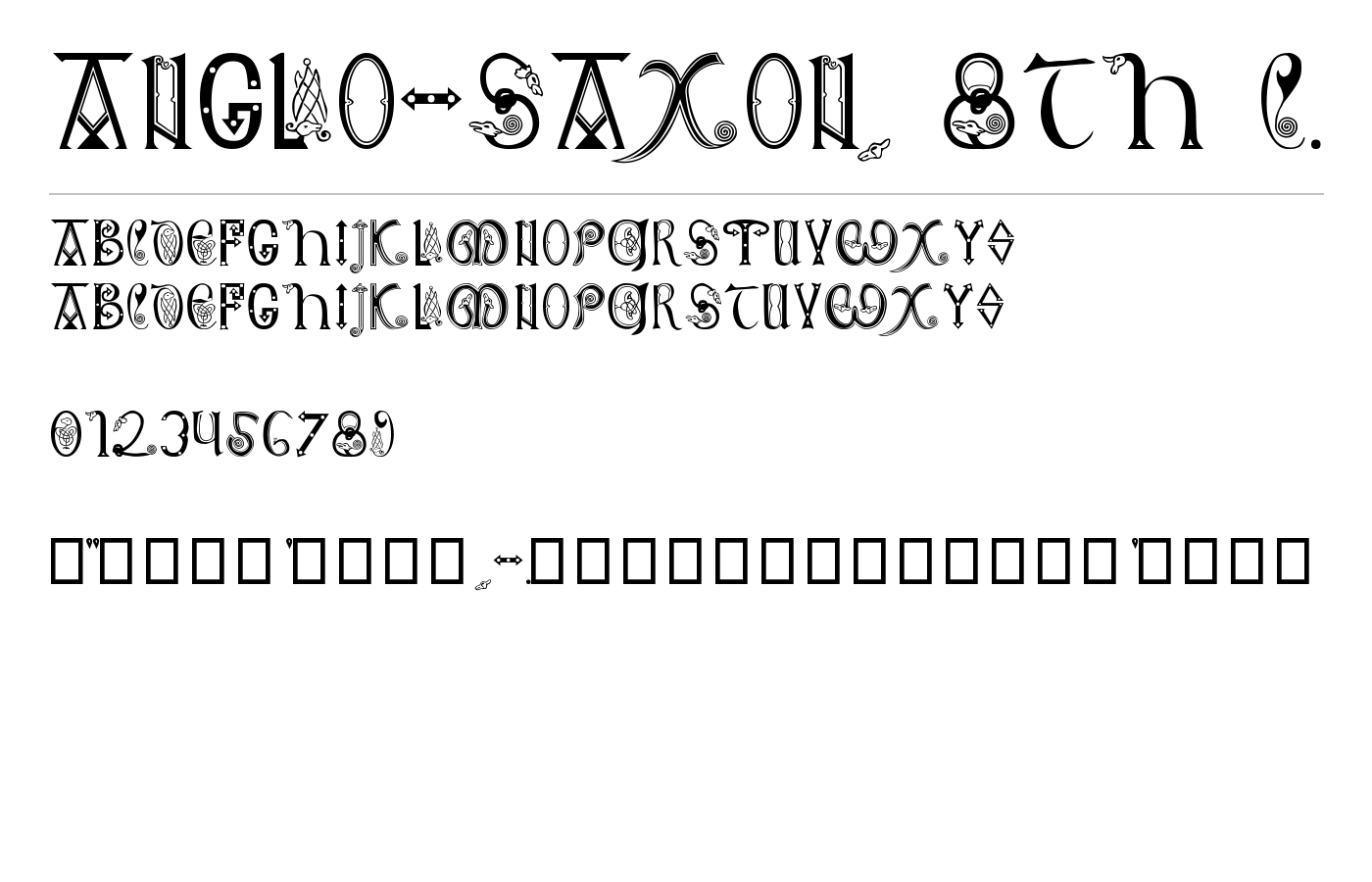
Anglo-Saxon, 8th c. is a decorative serif font with intricate, ornamental details inspired by early medieval manuscript lettering. It features high contrast between thick and thin strokes, elaborate flourishes, and unique letterforms that evoke a historic, artistic feel, making it ideal for designs that require a vintage or culturally rich aesthetic. This font works best in titles, logos, or themed projects where a strong, antique character is desired.
Anglo-Saxon, 8th c. Font
About Anglo-Saxon, 8th c. Font